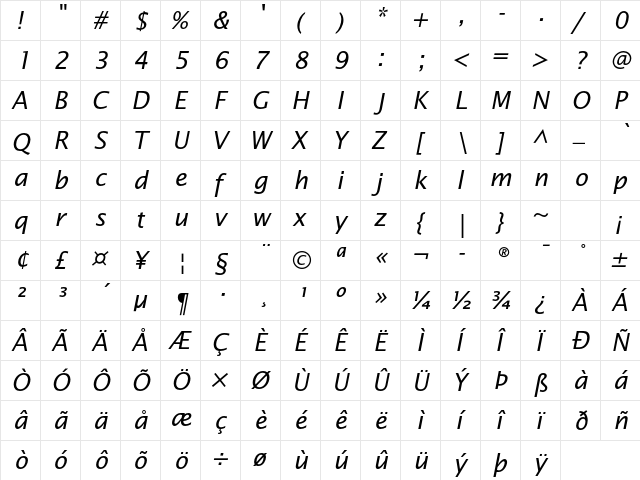
Lucida Sans Std Italic Font Preview
Lucida Sans Std Italic
Lucida Sans Std Italic Font Details
| Designer | Kris Holmes, Charles Bigelow |
Design Context for Lucida Sans Std Typeface
Lucida Sans Std takes a measured approach to typography — its balanced proportions and neutral character make it a reliable workhorse for both digital and print work. The slanted form adds forward momentum and visual energy.
Pro Tip: Try Lucida Sans Std for annotation and caption copy alongside an upright companion — the contrast in angle creates a dynamic but ordered typographic system.